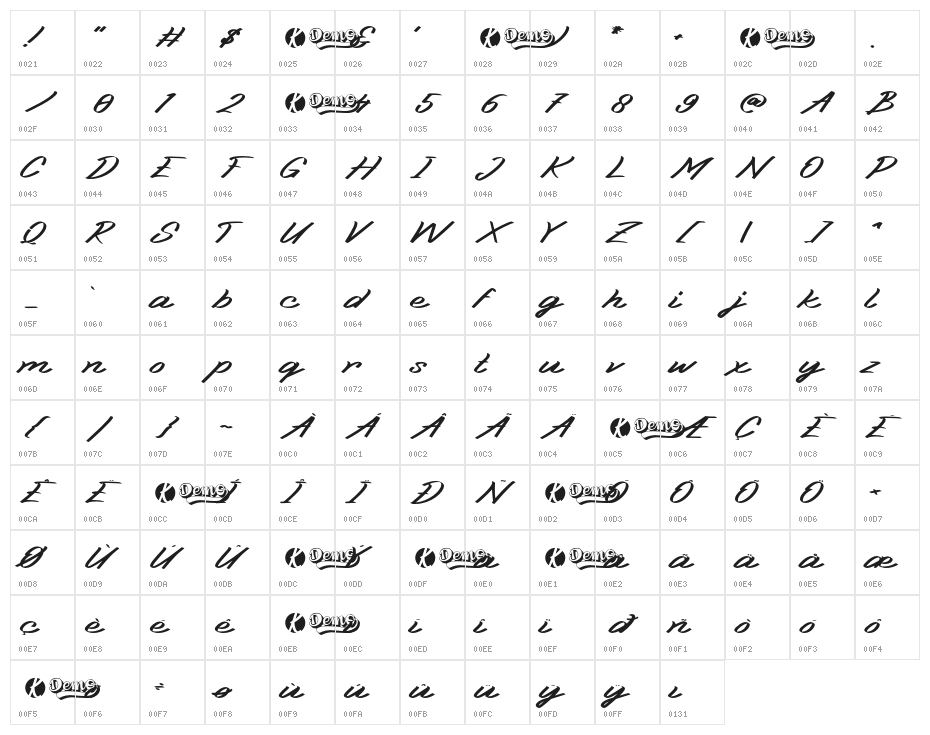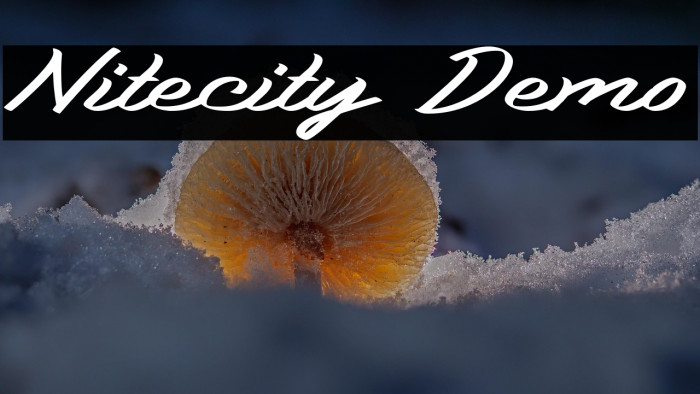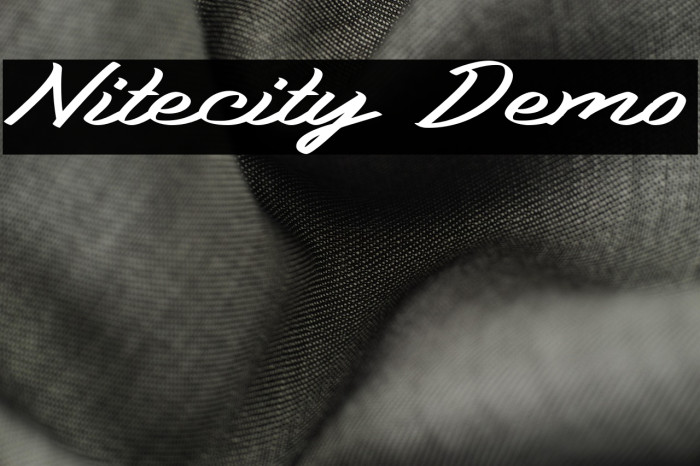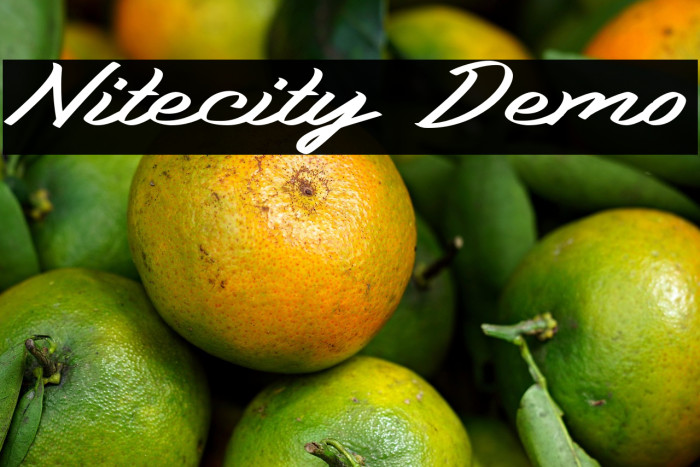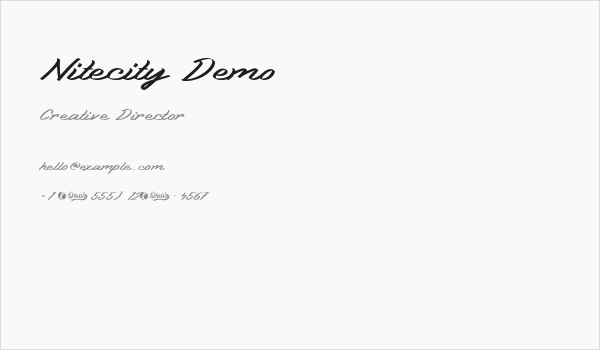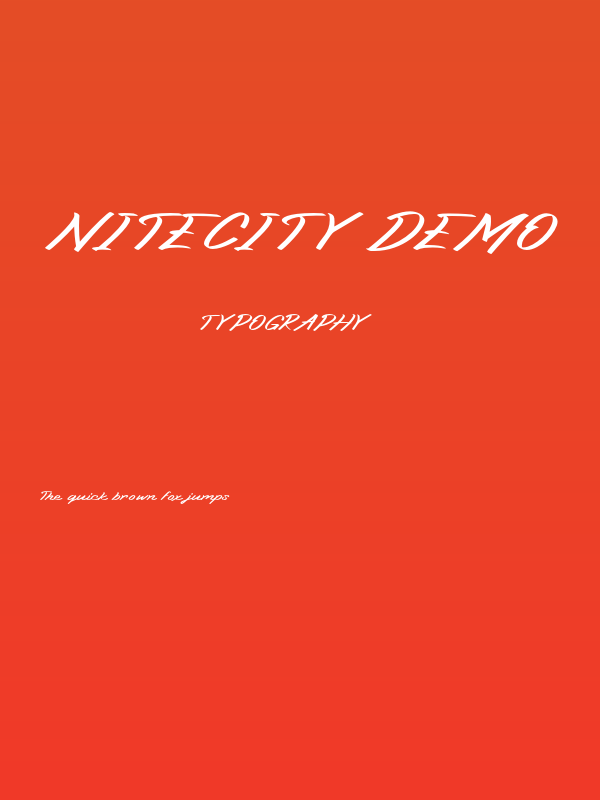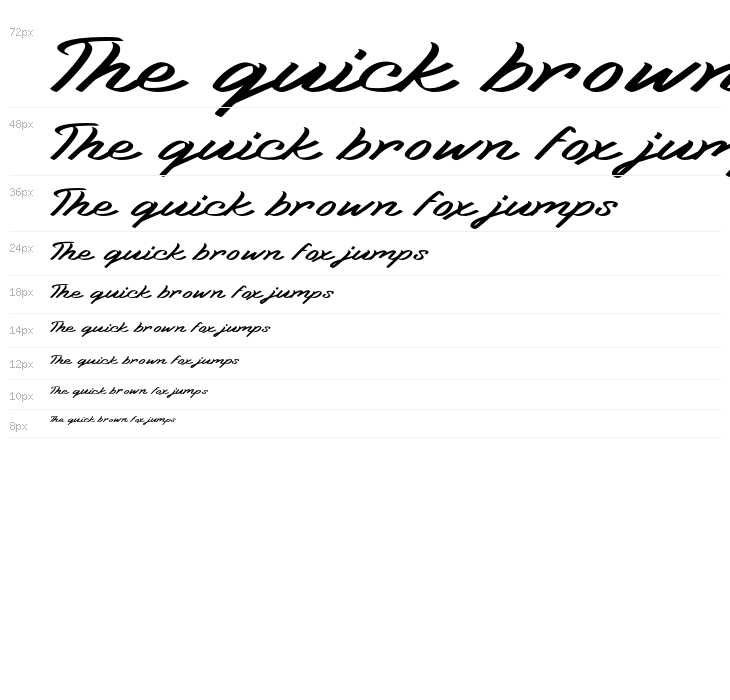
Nitecity Demo Font
Nitecity Demo Description
This font features a dynamic and energetic script style, characterized by its flowing, cursive letterforms. The uppercase letters exhibit a bold and confident presence, with sweeping strokes and elegant curves. The lowercase letters maintain a consistent rhythm, enhancing readability while preserving the artistic flair. Numbers are crafted with the same attention to detail, ensuring they integrate seamlessly with the alphabet. Special characters are thoughtfully designed, adding versatility to the font's application. The overall design exudes a sense of movement and creativity, making it suitable for projects that require a touch of sophistication and style.